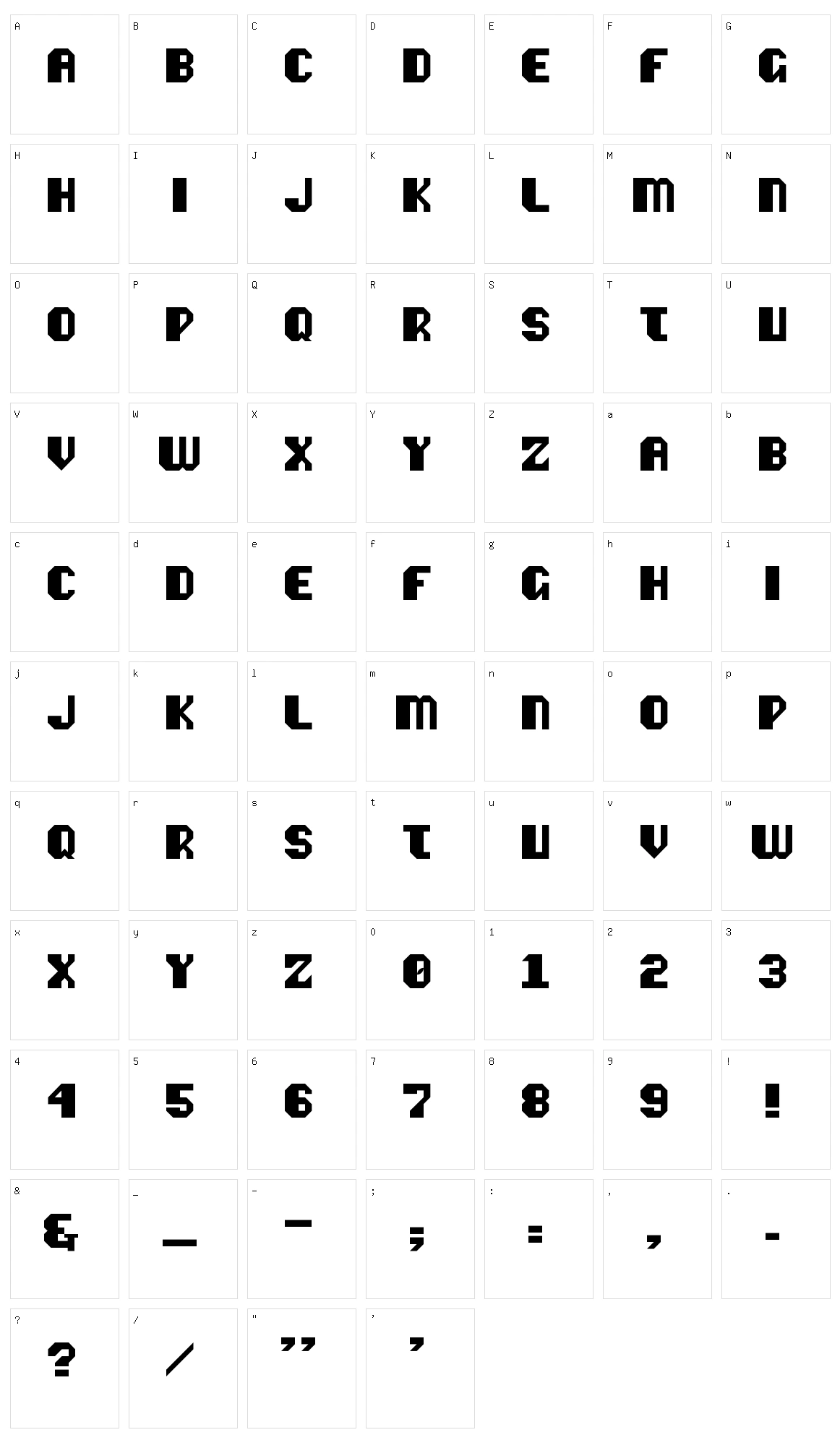
The free font Vipond Octic is carefully designed by James Vipond, showcasing a thoughtful balance of creativity and usability and falls under the Square font style. When you download the ZIP file, it contains only 4.25 KB of font files, making it lightweight and quick to download. Please review the license details below to understand permitted usage and distribution rights. If license information is not available, we recommend using this font for personal projects only or contacting the author directly for commercial usage permissions.